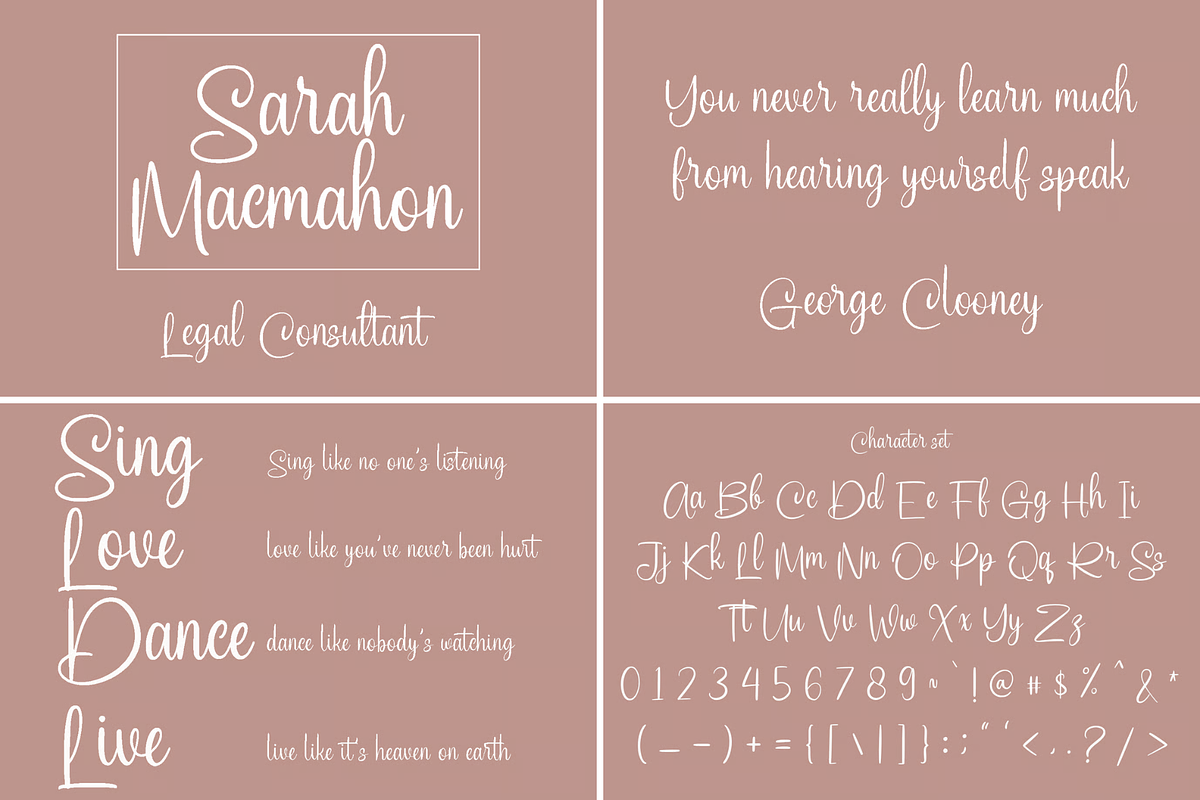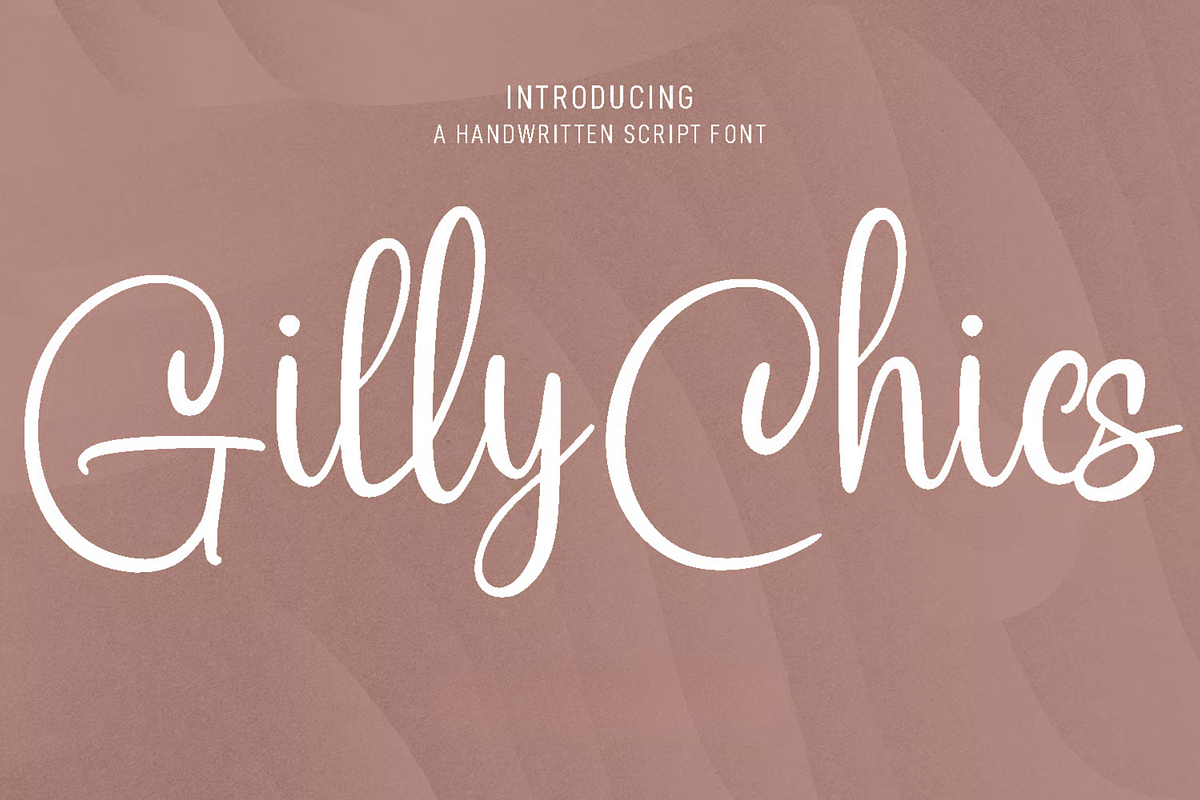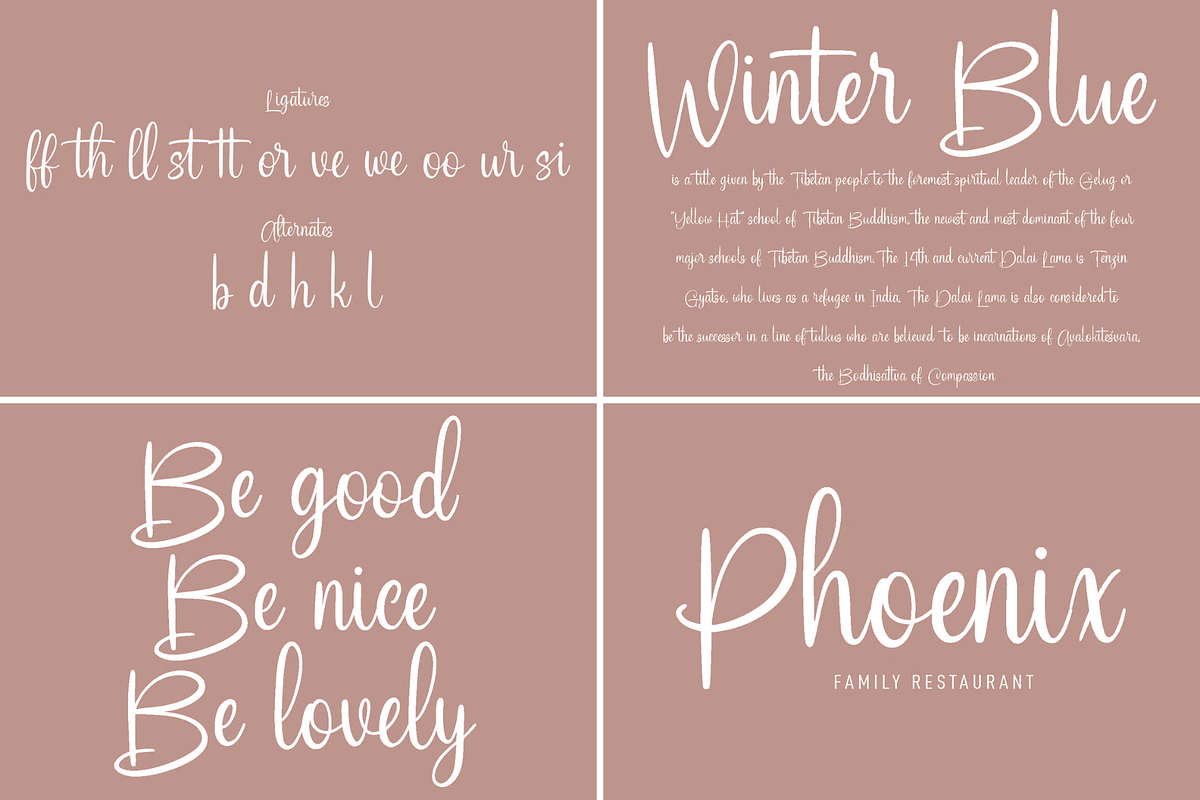
Gilly Chics Handwritten Script Font
Gilly Chics is a fancy handwritten script font. With light contrast stroke, fun character with a bit of ligatures and alternates. To give you an extra creative work. Gilly Chics font support multilingual more than 100+ language. This font is good for logo design, Social media, Movie Titles, Books Titles, a short text even a long text letter and good for your secondary text font with sans or serif. Make a stunning work with Gilly Chics font.